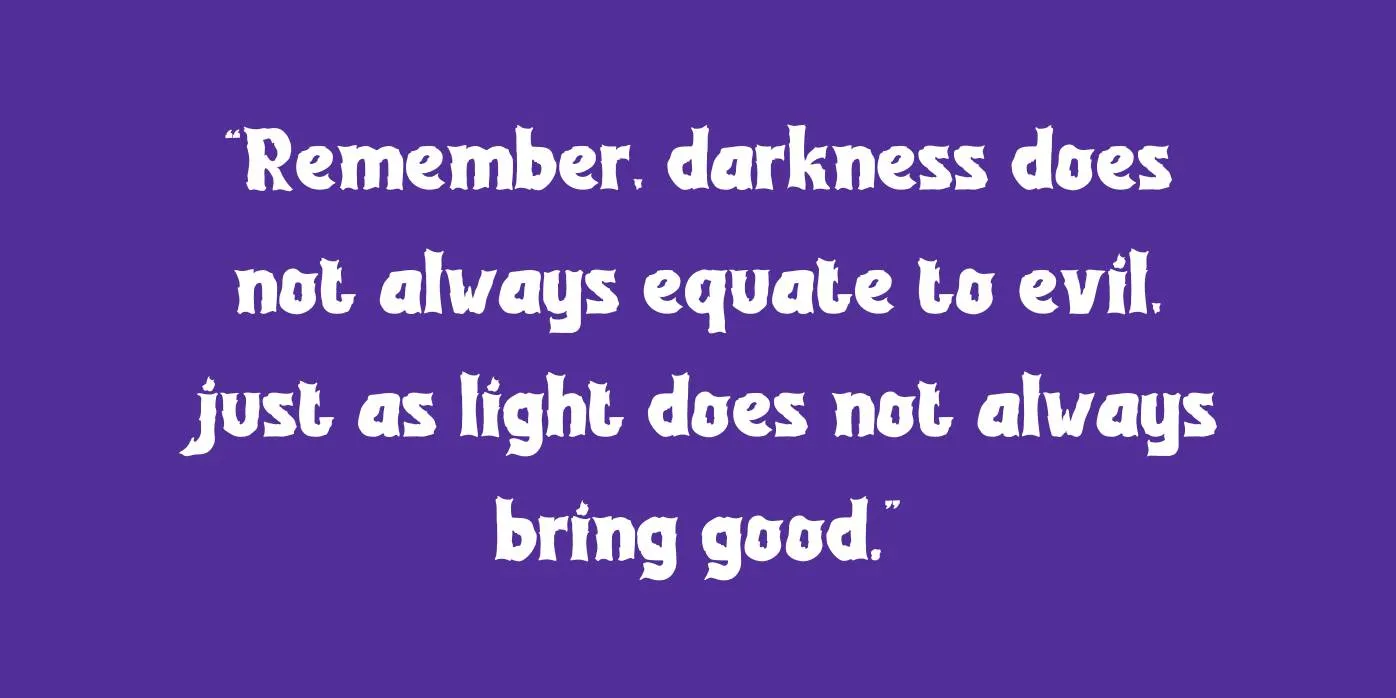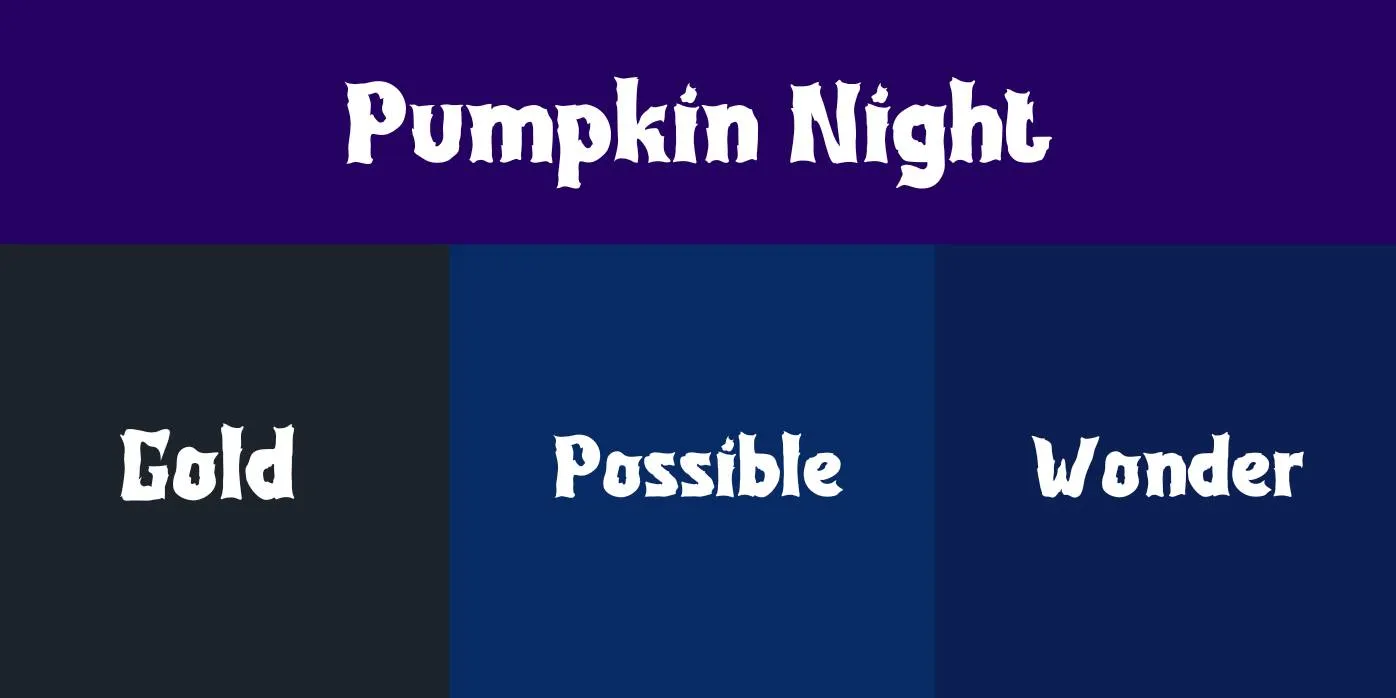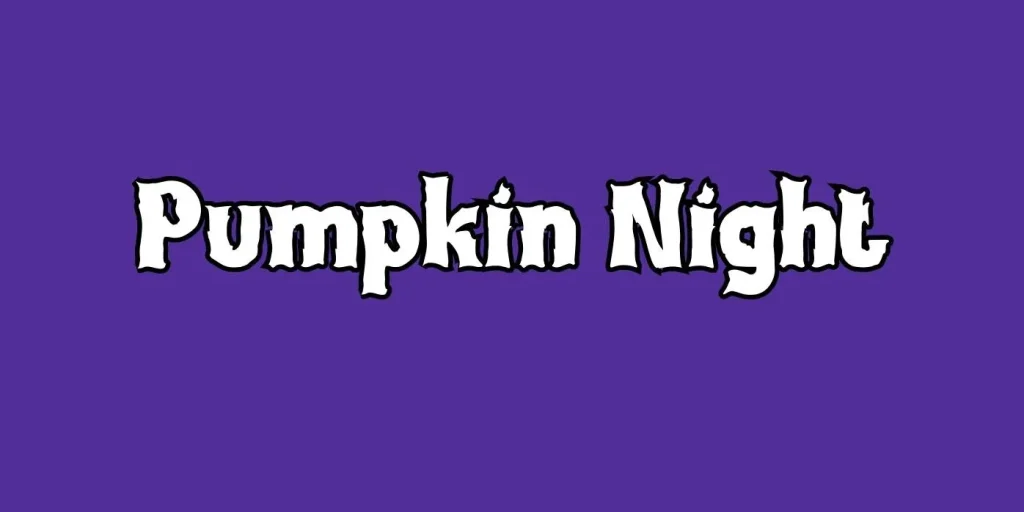
We’re presenting a fantastic, innovative, and scary typeface named “Pumpkin Night Font”. Pumpkin Night Font is a Halloween display font style that was created by Abul Almaududi and released by Pixesia Studio.
If you want to hold a night party and won’t make a scary and horror theme then this font is the best option for you, it can make the text stylish, horror, and as well as a contemporary feel to your design/project.
This fantastic font has only one weight Regular, it has durable, imaginary letters and shouts magical texture which works well in Halloween theme projects, titles, posters, banners, and other related displays.
This typeface is a calm and bushy letter display. this typeface has unique and advanced features, 199 glyphs, and 205 characters in uppercase, small case, numbers, punctuations, symbols, signs, and a few special characters.
The Scary Yet Stylish Texture Of Pumpkin Night Font In a Variety Of Projects
This font has a fashionable, horror, and frightening presence that can give a contemporary and unique inscription to your emblem, poster, insignia, title, banner, flag, headline, flyer, brochure, document, article, newspaper, and other design projects.
This font would be an excessive selection for website graphics it can style your site more elegant and progressive, and this script is flawless for publicity material, online ads, promotional videos, and advertising projects.
This lettering is the best option for any type of display or project that want an exceptional and contemporary presence. It can be working in content, training, announcements, commercials, and numerous other associated purposes.
What are the unique features of Pumpkin Night Font?
Some of the unique features of this font include its playful look, and its ability to be used for graphic designing purposes.